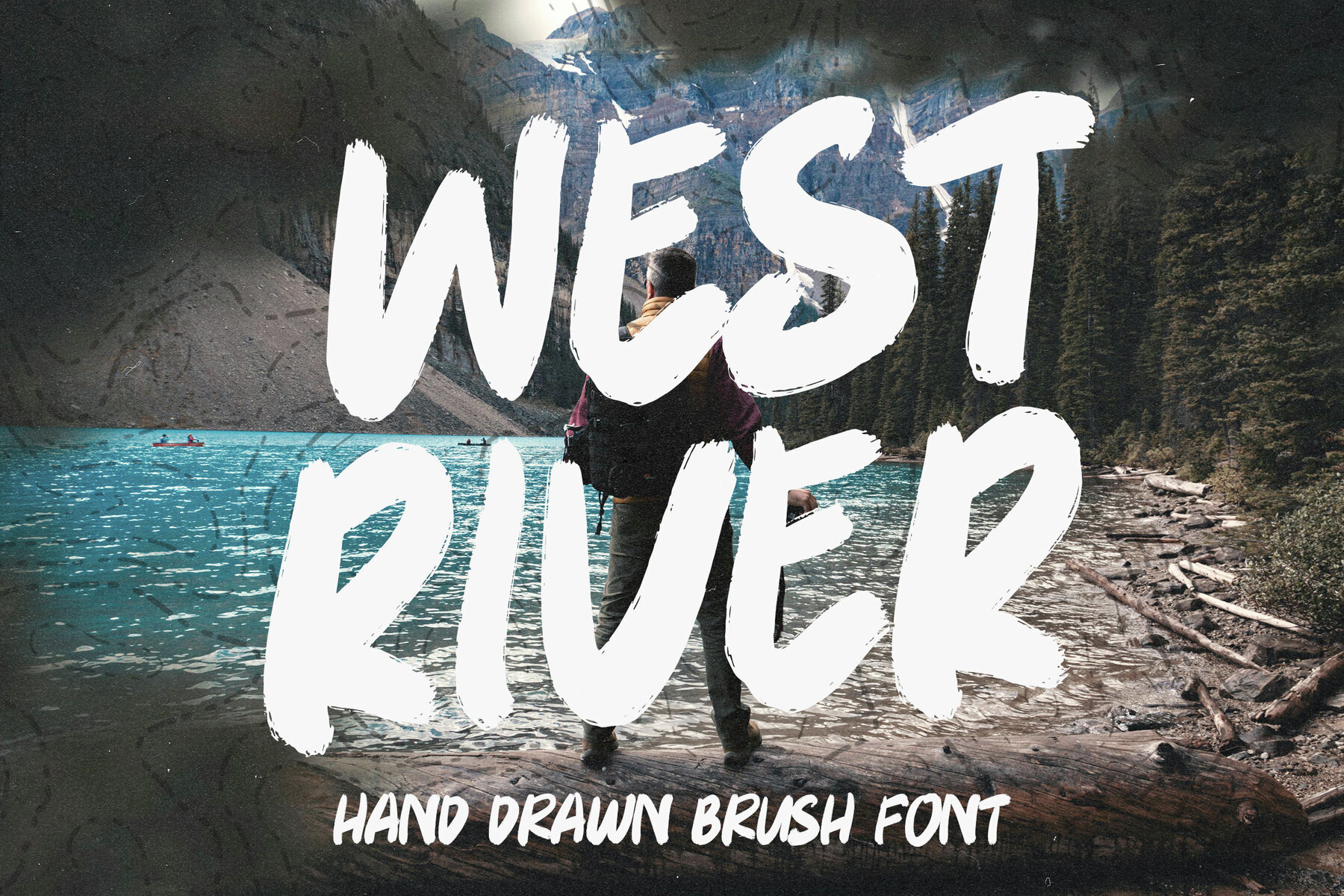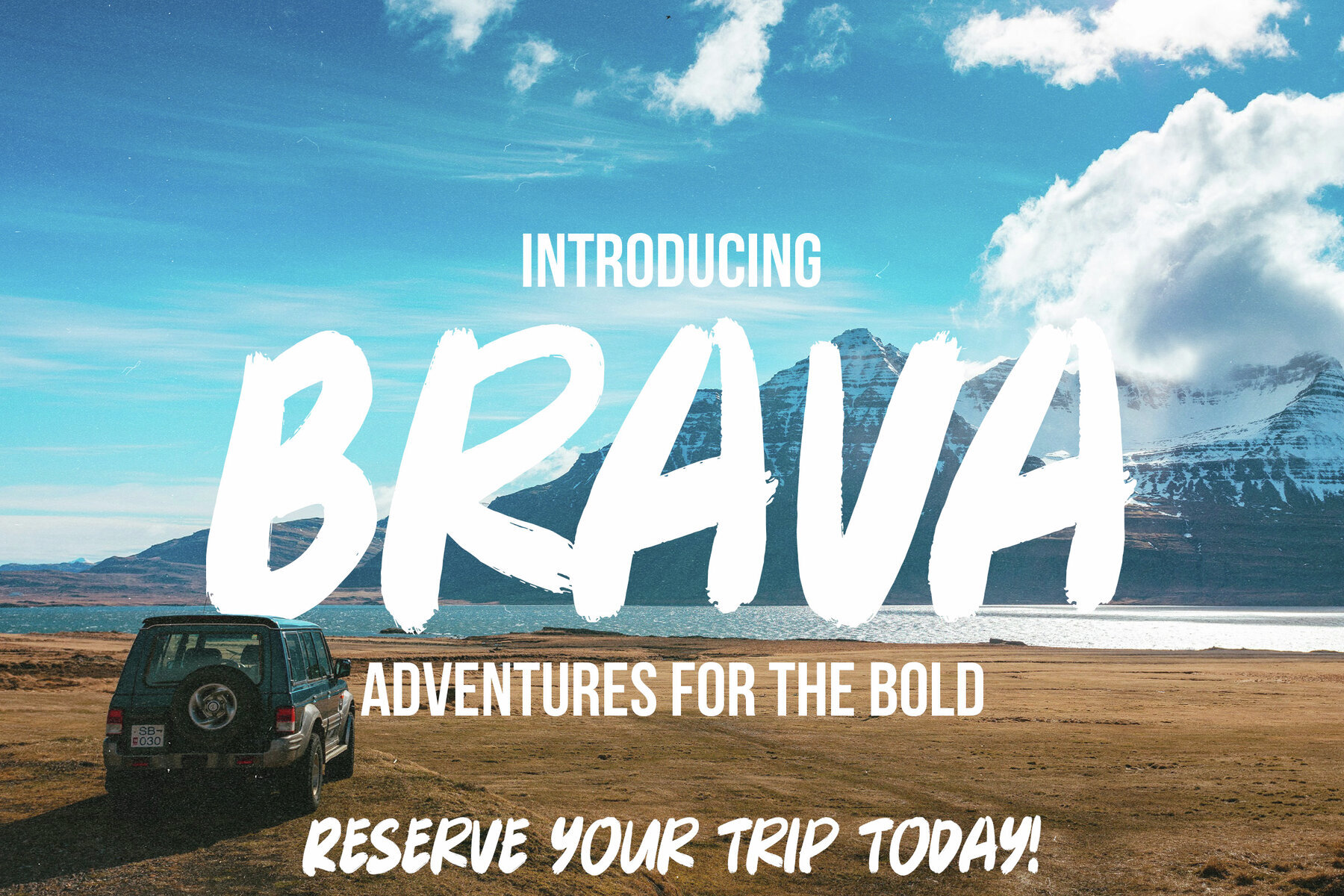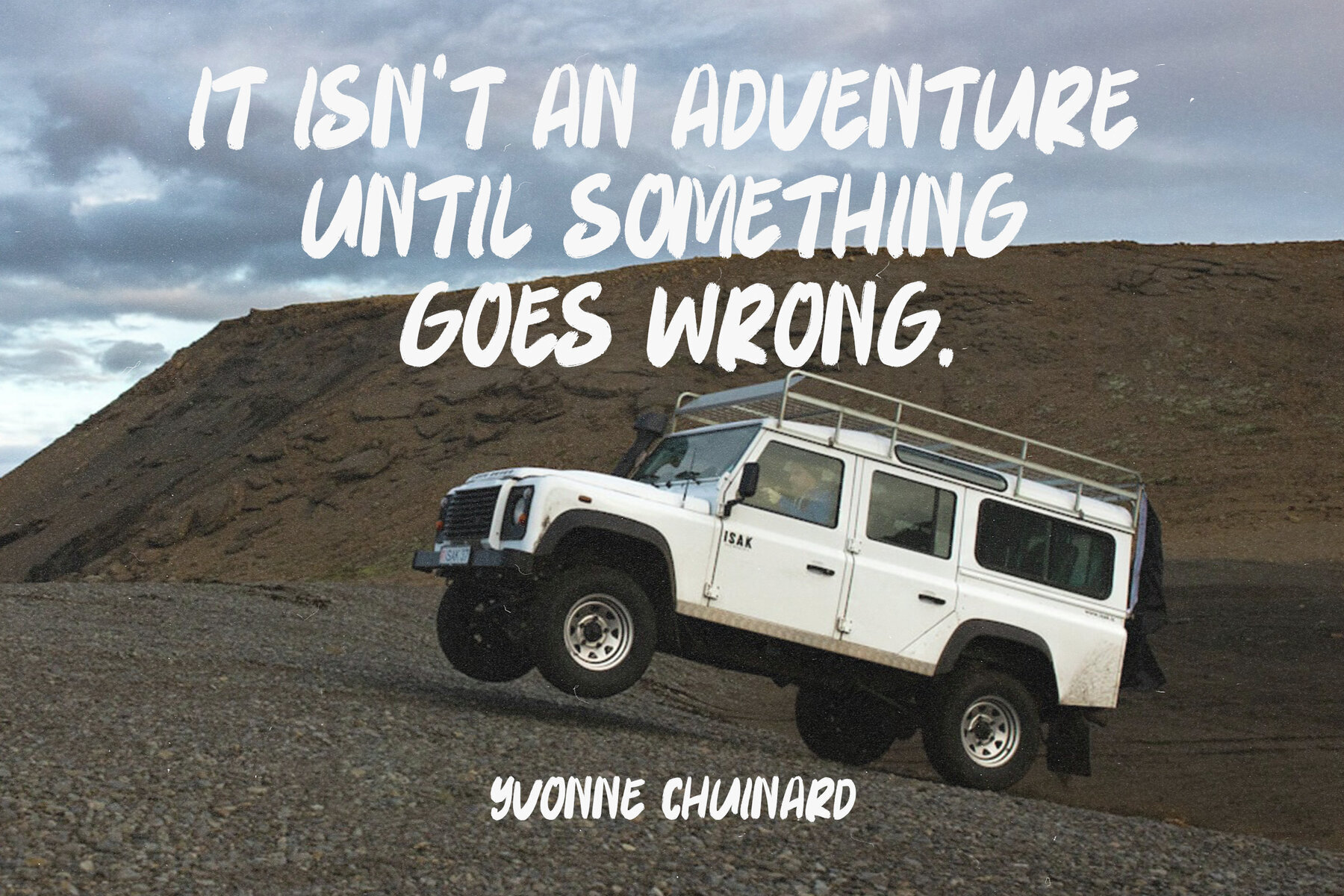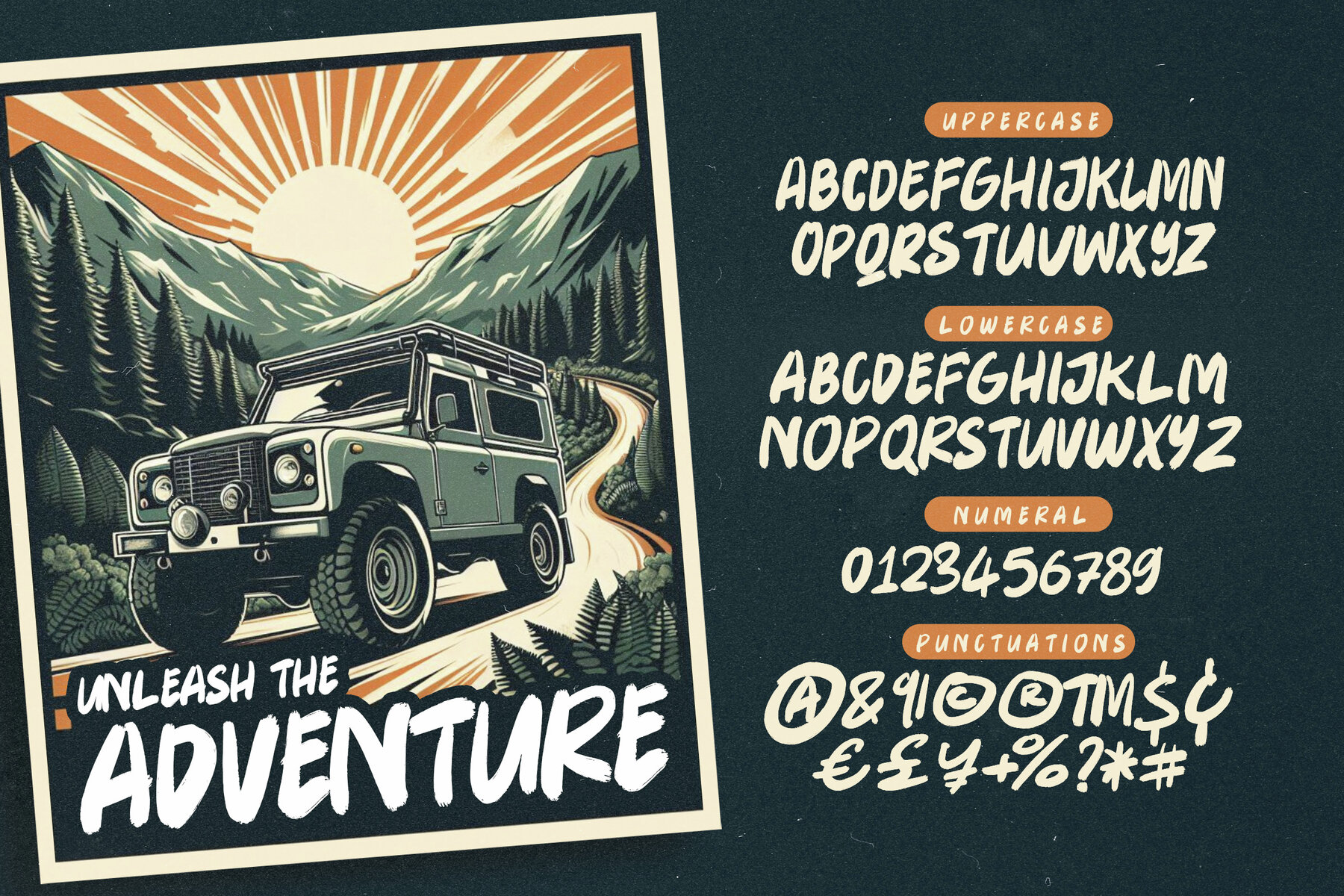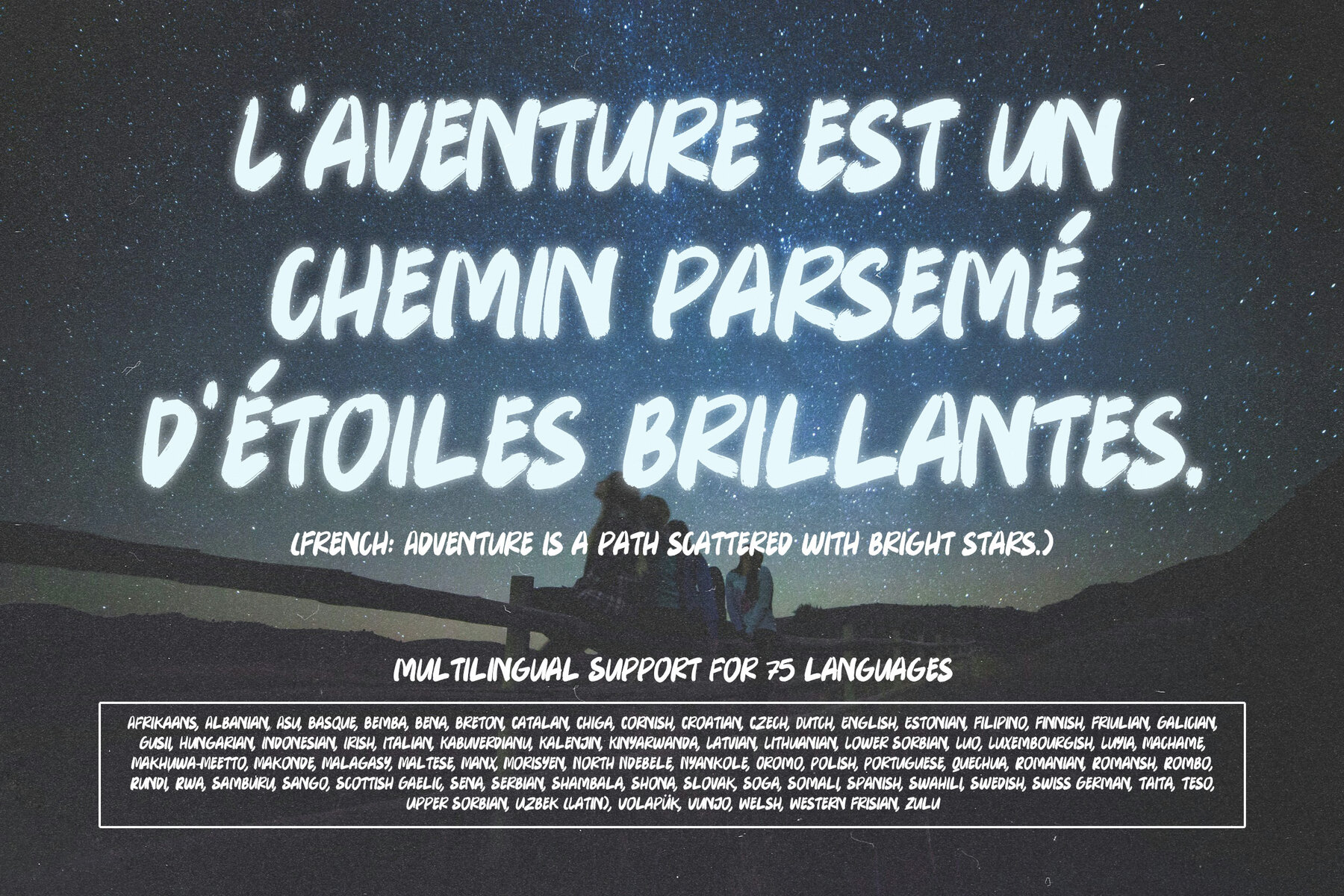
West River Font
West River Regular
This font exudes a raw, energetic vibe that is both casual and impactful. Its brush-like, textured strokes give it an organic, handwritten feel, perfect for designs that require a sense of dynamism and spontaneity. The imperfections and expressive quality of the font make it well-suited for contemporary projects that aim to stand out and convey an edgy, youthful spirit.